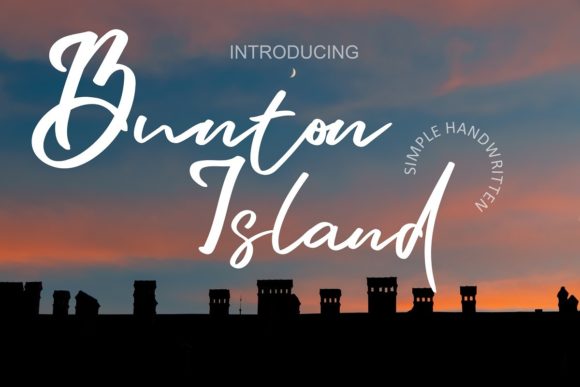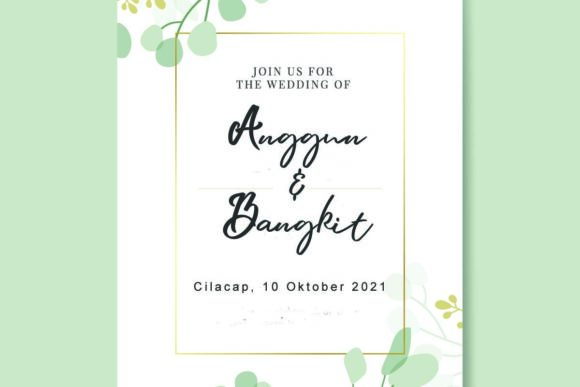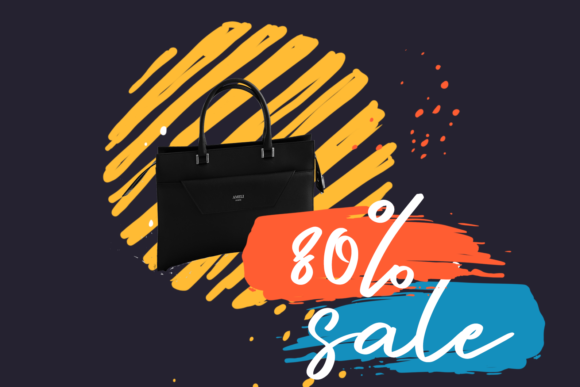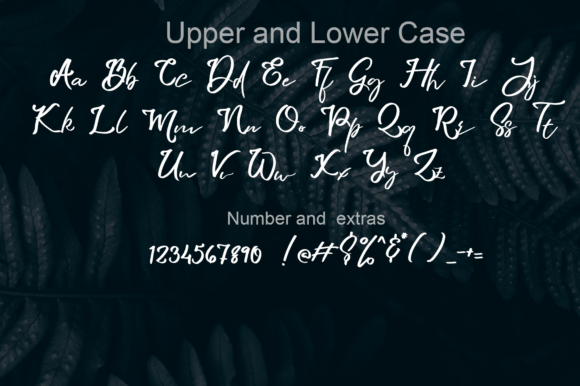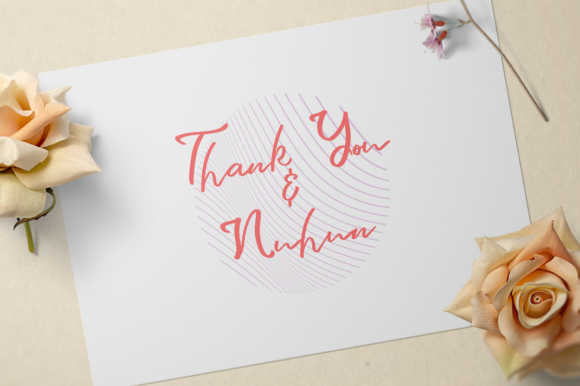
Bunton Island Font
About Bunton Island Font
Bunton Island is a beautiful handwritten font, featuring a lovely flow. Suitable to a wide variety of designs due to its neat and simple style, this font has the potential to become your favorite go-to font, no matter the occasion!